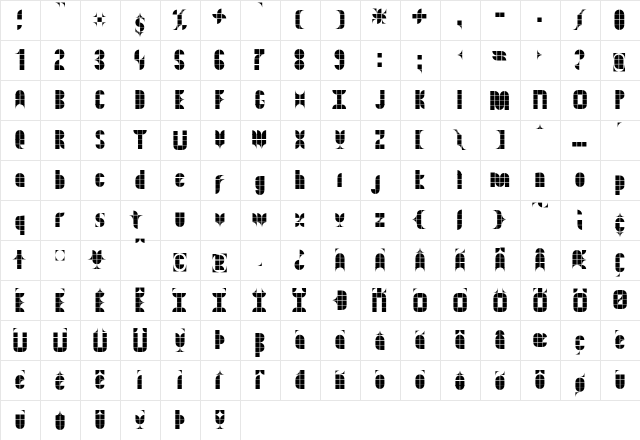
Kitchen Tiles Regular
Design Context for Kitchen Tiles Typeface
Kitchen Tiles is a composed and adaptable typeface that performs quietly and consistently across a wide range of design contexts.